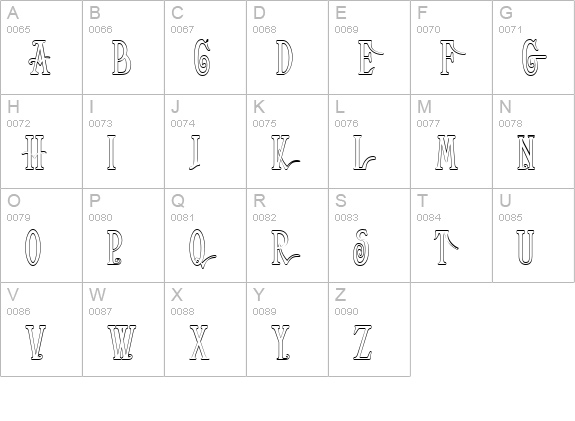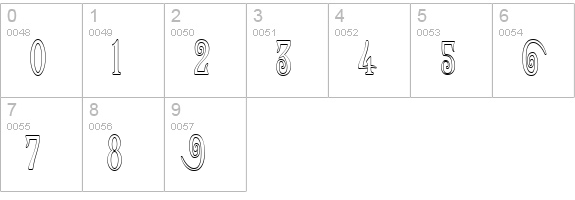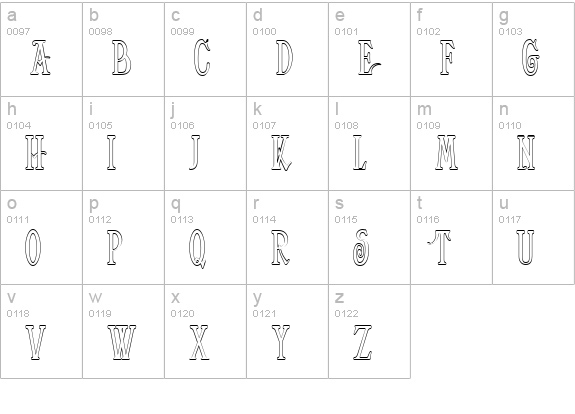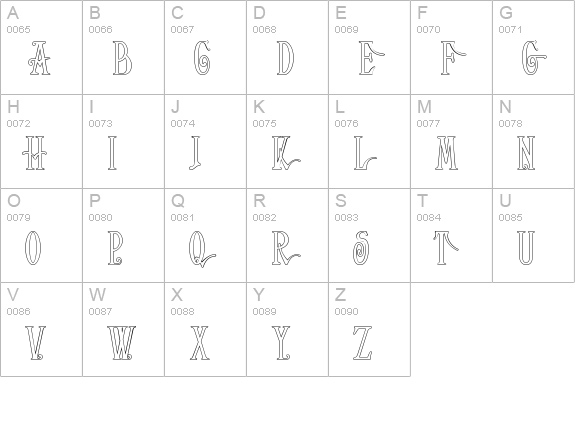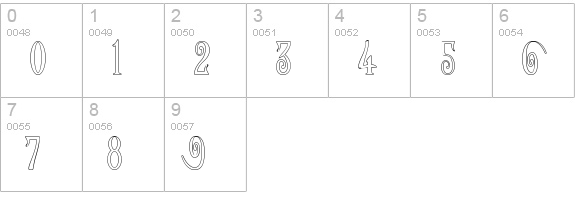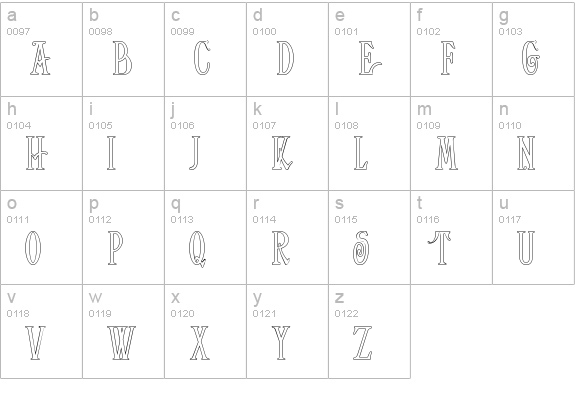
Helena-Outline Font Details
Helena-Outline font is a stunning typeface that exudes elegance and sophistication. Its delicate lines and intricate details make it a perfect choice for adding a touch of class to any design project. With its unique outline style, this font is sure to make a statement and capture attention. Designed with precision and care, Helena-Outline font offers a harmonious balance between grace and modernity. Its sleek and slender letterforms create a sense of fluidity, while its sharp edges and clean curves add a contemporary twist. Whether used for headlines, logos, invitations, or any other creative endeavor, this font will bring a touch of refinement to your work. One of the best things about Helena-Outline font is that it is freely available to download at FontsMarket.com. This means that you can easily access and use this font in your projects without any cost. Downloading Helena-Outline font from FontsMarket.com is quick and hassle-free, allowing you to start using this beautiful typeface in no time. With its versatility and timeless appeal, Helena-Outline font is a valuable addition to any designer's toolkit. Its unique style and attention to detail make it a standout choice for those who want to make a lasting impression. So why wait? Download Helena-Outline font for free at FontsMarket.com and elevate your designs to new heights of sophistication.